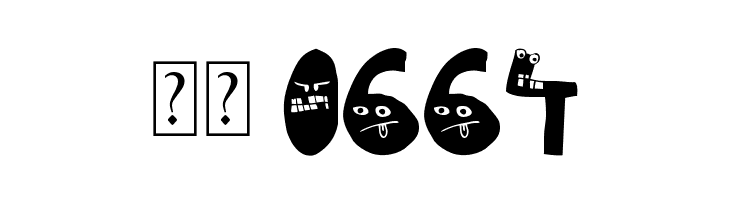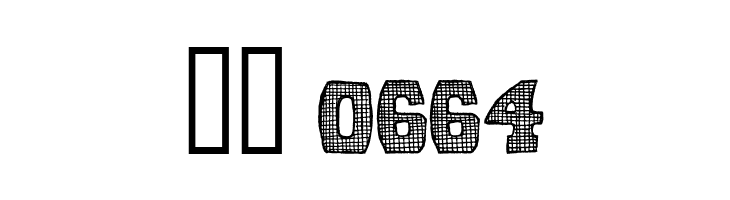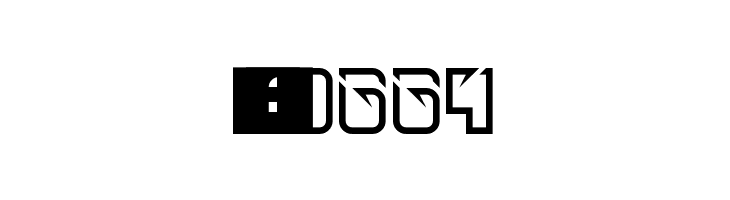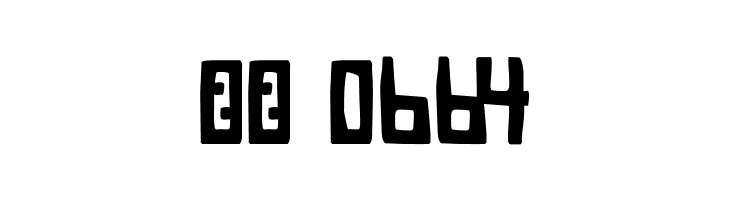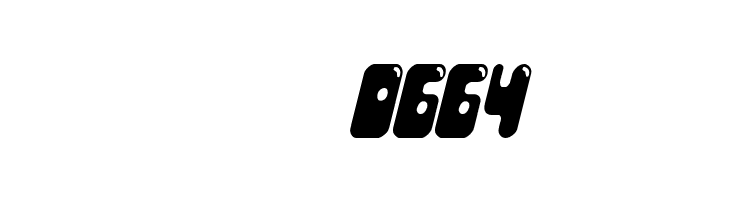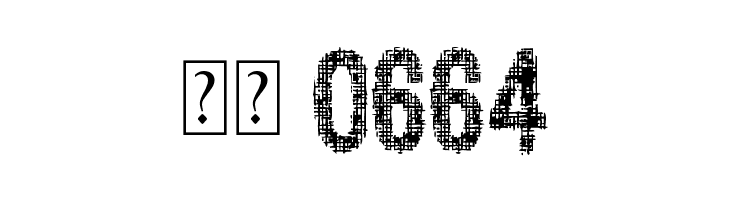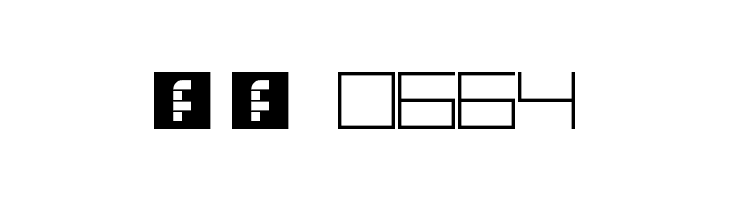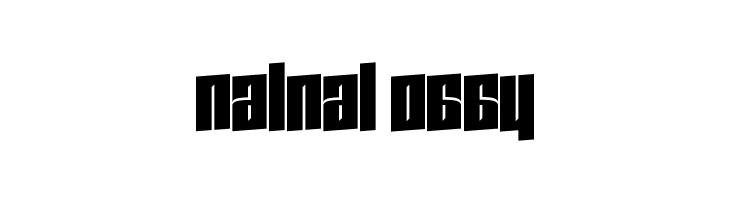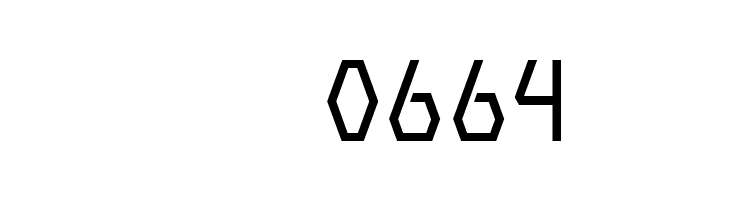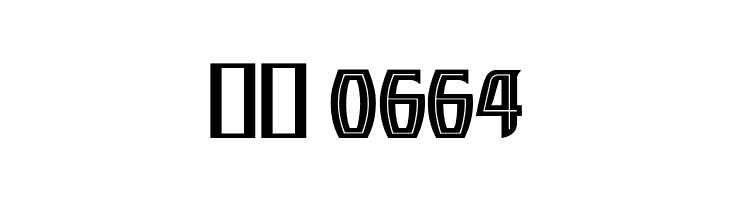
A bold, geometric outline font with sharp angles and clean lines.
An edgy, bone-like font with sharp, irregular edges and a rugged appearance.
A playful, cartoon-like font with bold, expressive characters featuring unique facial elements.
A decorative font with a mesh-like pattern and bold, artistic characters.
A playful, matchstick-inspired decorative font with uniform stroke thickness.
A bold, geometric font with a modernist and abstract style.
A playful, bold font with a 3D shadow effect and rounded, irregular characters.
A playful, bold, and condensed italic typeface with bubble-like characters.
A textured, woven-style font with a handcrafted appearance.
A geometric, angular font with a futuristic and technical design.
A bold, modern-vintage font with high contrast and elongated letterforms.
A bold, geometric font with a modern and assertive design.
A futuristic, angular font with sharp edges and geometric shapes.
A bold, geometric font with outlined characters and sharp serifs.
A bold, decorative font with high contrast and intricate detailing.
A bold, angular font with a futuristic and edgy design.
An artistic and flowing font with elongated, dynamic letterforms.
A bold, spiky font with a chaotic, virus-like design.
A bold, angular font with a geometric, three-dimensional style.
A bold, expressive handwritten font with dynamic strokes and a playful style.
An artistic and bold font with dramatic strokes and sharp serifs.
A bold, metallic block serif font with a three-dimensional, industrial look.
A whimsical and playful font with spiral motifs and decorative swirls.
A playful, splatter-textured font with bold, rounded characters.
A bold, textured font with a dynamic, vibrating appearance.
A bold, modern font with a unique cut-out style for impactful designs.
A bold, textured font with a speckled, weathered appearance.